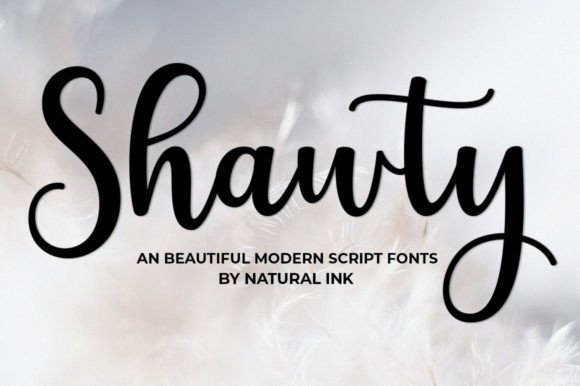
If you're looking for a stunning and elegant script font that will make your wedding invitations, logos, and product packaging stand out, look no further than Shawty Script Font. Created by Natural Ink, this modern calligraphy design is the perfect choice for anyone seeking to add a touch of beauty and sophistication to their designs.
With its casual yet refined look, Shawty Script Font is a versatile option that can be used for a wide range of purposes. Whether you're looking to create branding, headlines, signage, labels, signatures, book covers, posters, or quotes, this font will give your projects a professional and polished look that is sure to impress.
One of the best features of Shawty Script Font is its swash, which adds a unique and eye-catching flourish to your text. This font is ideal for anyone seeking to create a romantic and whimsical feel in their designs. Its elegant curves and graceful loops are perfect for creating a sense of movement and fluidity, making it a great choice for wedding invitations, love letters, and other romantic projects.
But Shawty Script Font isn't just beautiful, it's also functional. Its clean lines and easy-to-read letters make it an excellent choice for product packaging, logos, and branding. With its stylish and sophisticated look, this font is sure to grab the attention of your customers and make your brand stand out from the competition.
In short, if you're looking for the best fonts for wedding, Shawty Script Font should be at the top of your list. With its stunning design, versatile applications, and romantic flair, this font is the perfect choice for anyone seeking to elevate their designs to the next level.